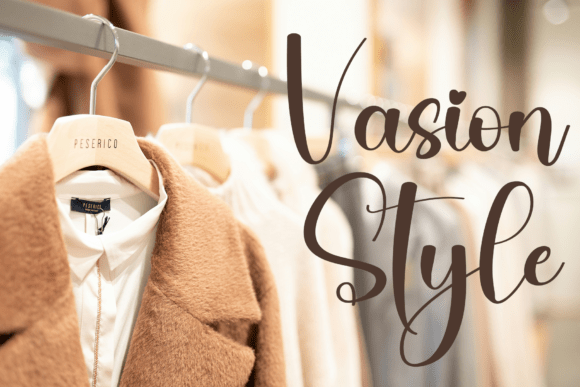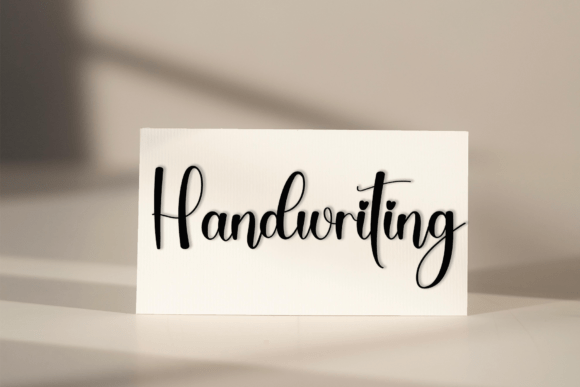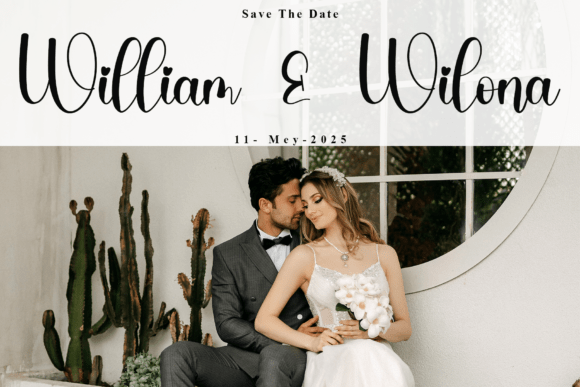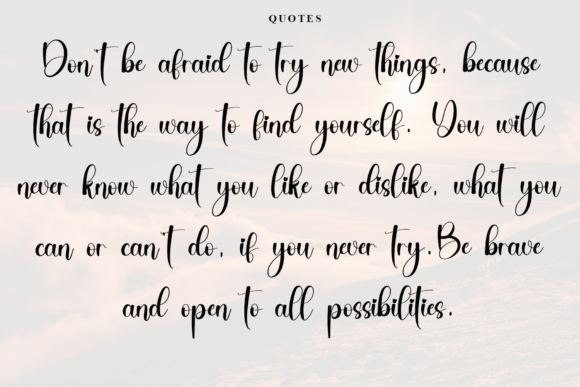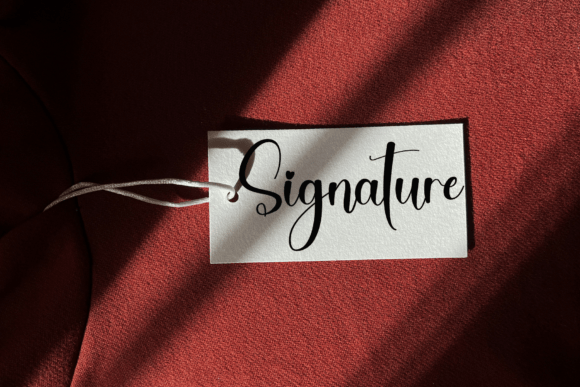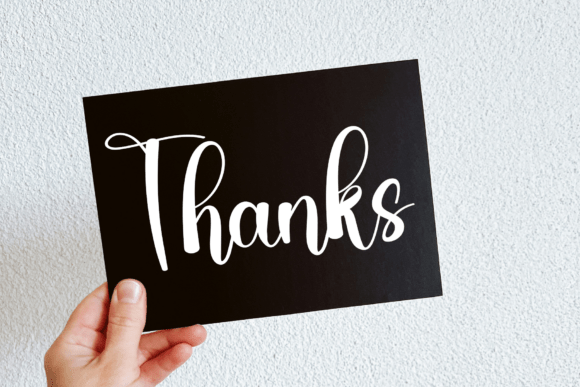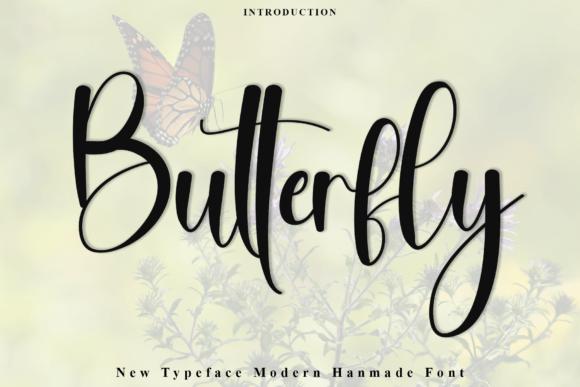
Introducing Butterfly Font: Elevate Your Designs with Elegance and Class
In the world of typography, a font can make or break a design. For designers and crafters looking to add a touch of sophistication and timelessness to their projects, the Butterfly Font is an exceptional choice. This trendy handwritten font boasts a contemporary atmosphere and impeccable form, drawing inspiration from classic calligraphy. In this article, we’ll explore the beauty and versatility of the Butterfly Font, and how it can elevate your design projects to new heights.
The Inspiration Behind Butterfly Font
The Butterfly Font is rooted in the elegance of timeless classic calligraphy. Its creators sought to capture the fluidity and expressiveness of handwritten script, while infusing it with a modern twist. The result is a font that exudes refinement and poise, perfect for designs that demand a high level of sophistication. Whether you’re working on a luxury brand identity, a wedding invitation, or a high-end product label, the Butterfly Font is sure to impress.
Key Features of Butterfly Font
- Trendy and Contemporary: The Butterfly Font features a fresh and modern aesthetic that’s perfect for designs that require a current and stylish look.
- Handwritten with Flair: This font’s handwritten nature gives it a personal and approachable feel, while its impeccable form ensures it remains legible and elegant.
- Inspired by Classic Calligraphy: The Butterfly Font’s roots in traditional calligraphy lend it an air of timelessness and sophistication.
- Elegant and Classy: This font is designed to add a touch of luxury and refinement to any design project.
Uses for Butterfly Font
The versatility of the Butterfly Font makes it suitable for a wide range of design applications. Here are a few ideas to get you started:
- Branding and Identity: Use the Butterfly Font to create a luxurious and memorable brand identity for high-end clients or products.
- Wedding and Event Design: Add a touch of romance and elegance to wedding invitations, save-the-dates, and other event materials.
- Packaging Design: Elevate product labels and packaging with a sophisticated font that conveys high-quality and refinement.
- Stationery and Print Design: Create beautiful and elegant stationery, business cards, and print materials that make a lasting impression.
Tips for Using Butterfly Font Effectively
To get the most out of the Butterfly Font, consider the following tips:
- Pair with Neutral Backgrounds: Allow the font to shine by pairing it with neutral or subtle backgrounds that won’t compete for attention.
- Experiment with Colors: Take advantage of the font’s elegance by experimenting with a range of colors and textures.
- Use for Headlines and Titles: The Butterfly Font is perfect for headlines and titles, where its elegance and sophistication can make a big impact.
- Mix with Other Fonts: Don’t be afraid to combine the Butterfly Font with other fonts to create visual interest and hierarchy.
The Butterfly Font is a stunning addition to any designer’s toolkit. Its unique blend of classic calligraphy and modern flair makes it perfect for a wide range of design applications. Whether you’re looking to create elegant branding, beautiful stationery, or sophisticated packaging, this font is sure to impress. With its impeccable form and trendy aesthetic, the Butterfly Font is an excellent choice for designers and crafters seeking to add a touch of luxury and refinement to their projects.